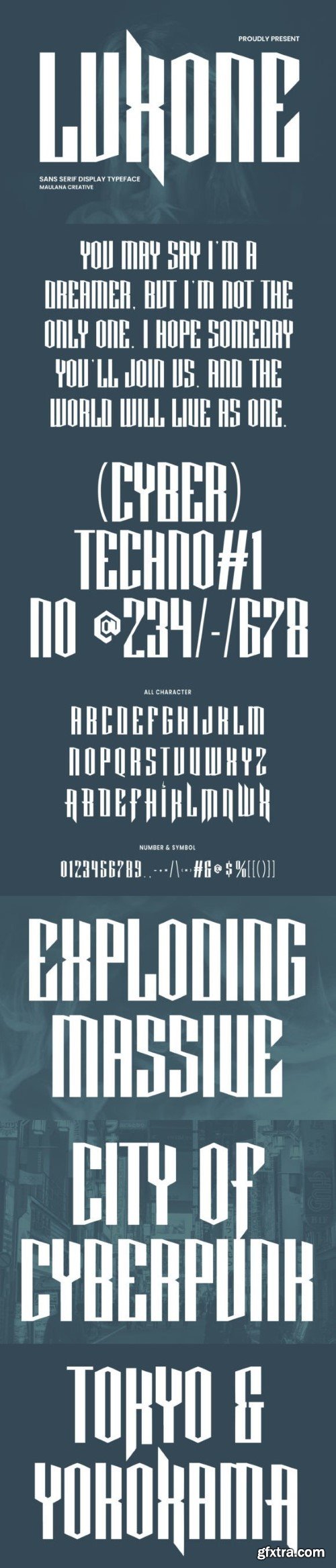
路克斯顿字体
Luxone is an elegant sans serif typeface. It features bold, tall, and sharp strokes, along with playful characters that include ligatures and alternates. This font offers you the opportunity to create exceptionally creative designs. Moreover, Luxone supports over 100+ languages, making it suitable for various purposes such as logo design, social media posts, movie titles, book titles, short and long text letters, as well as secondary text fonts in both sans and serif styles. Unleash your creativity with the stunning Luxone font.